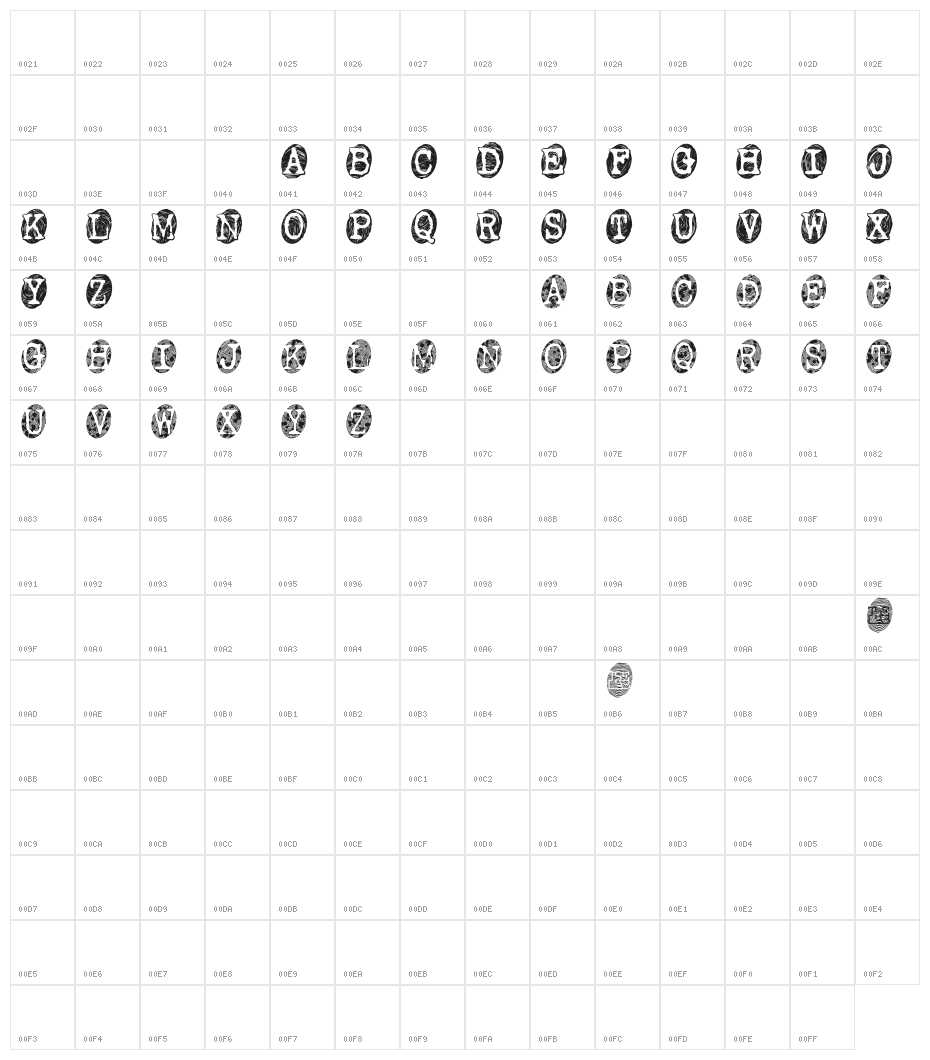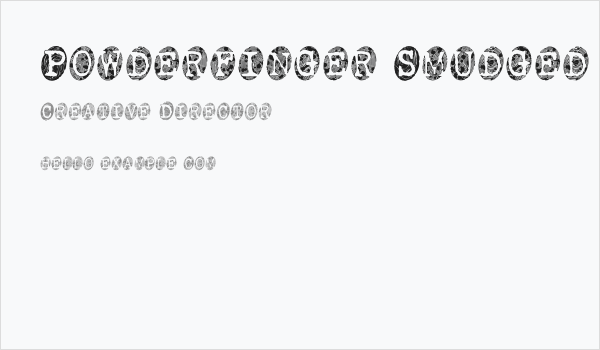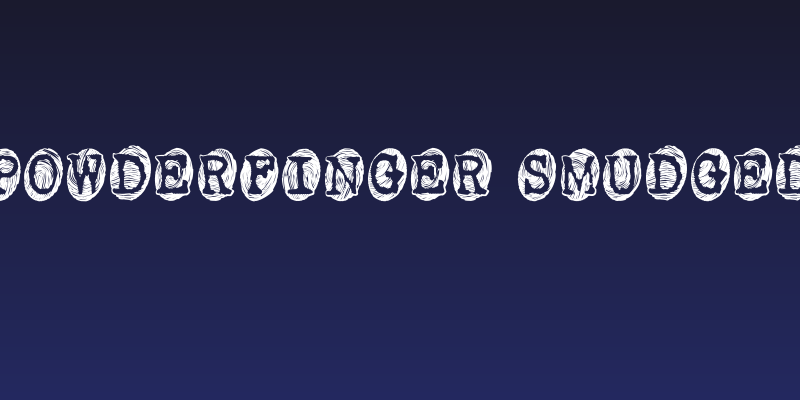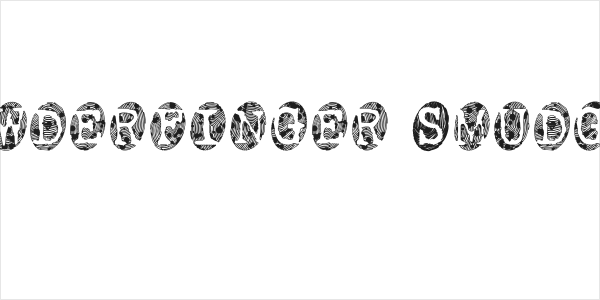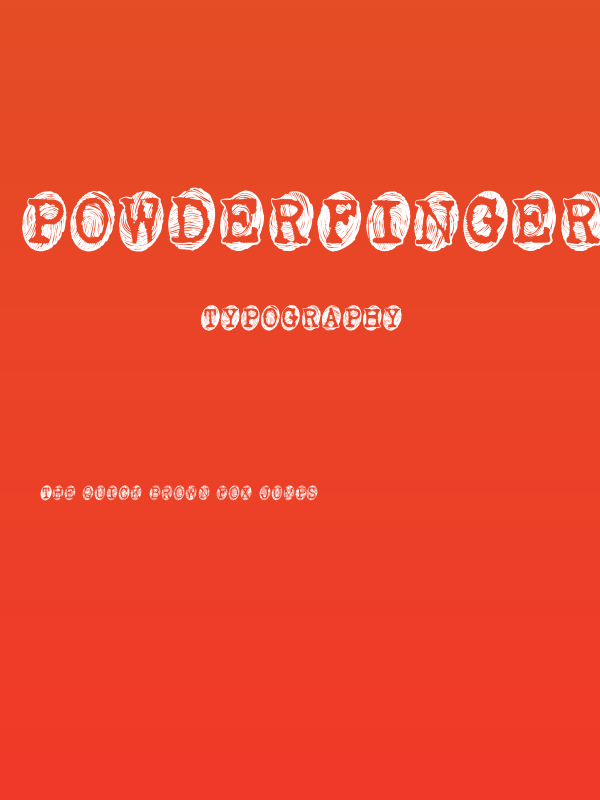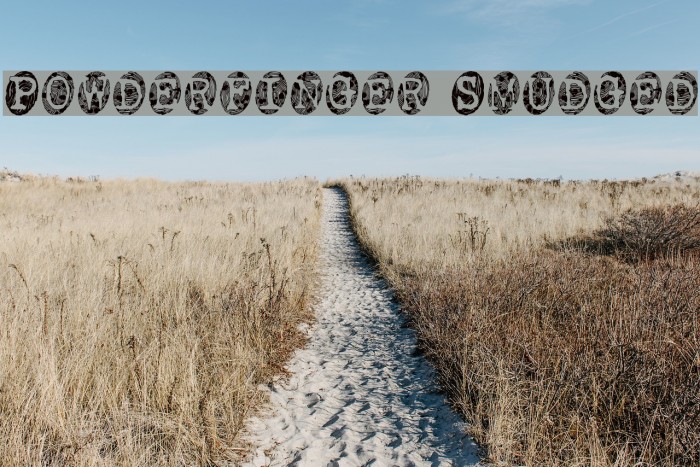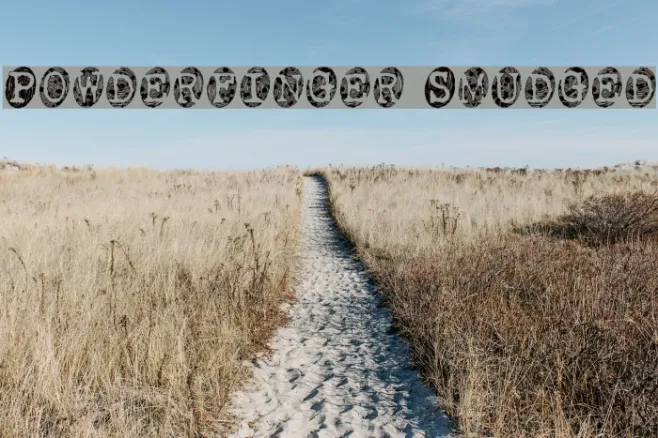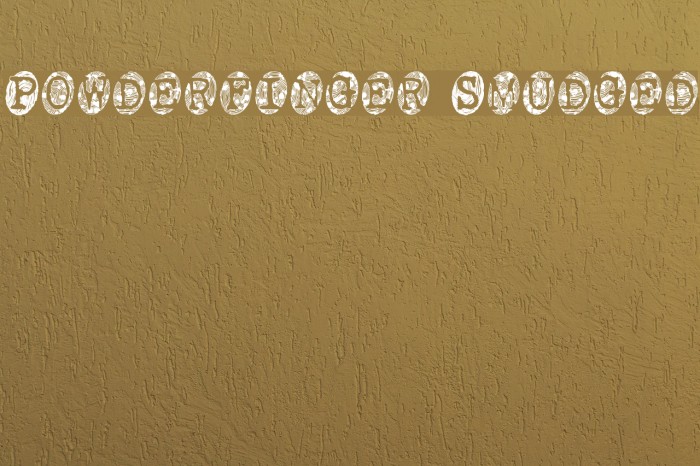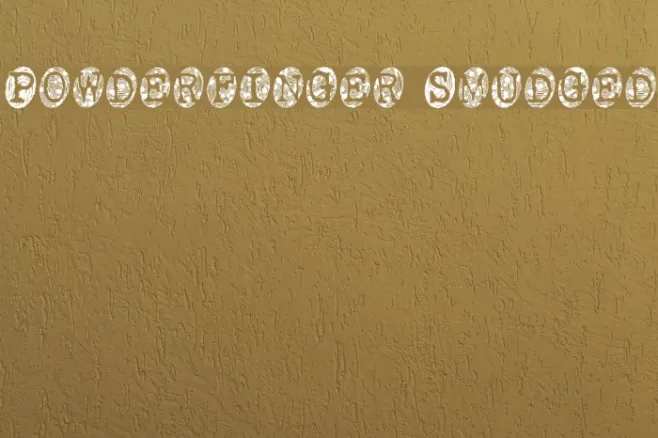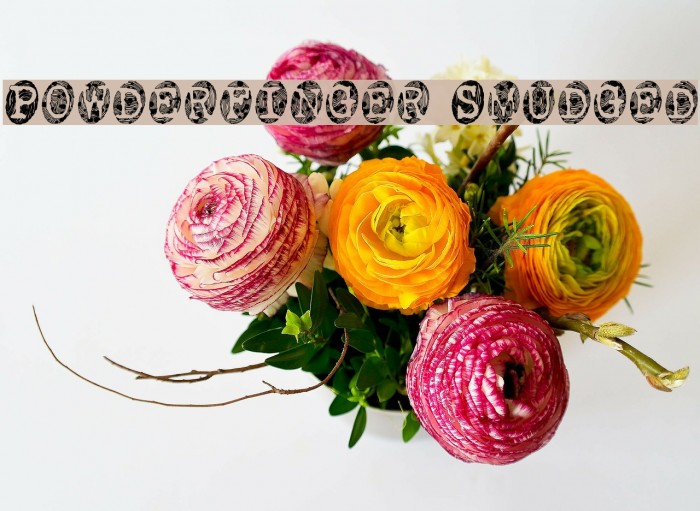
Powderfinger Smudged Font
Powderfinger Smudged Description
This font features a unique, smudged appearance with each character enclosed in an irregular, oval shape. The letters are bold and have a textured, hand-drawn look, reminiscent of ink smudges or fingerprints. The strokes are uneven, adding to the organic and artistic feel of the font. This style creates a sense of movement and dynamism, making it stand out in any design. The font maintains legibility despite its decorative elements, making it suitable for eye-catching headlines or artistic projects.
| Overall Style | Artistic, Dynamic, Textured |
| Use Case | Headlines, Artistic projects, Posters |
| Proposed Projects | Ideal for album covers, posters, artistic branding, and creative projects that require a bold statement. |